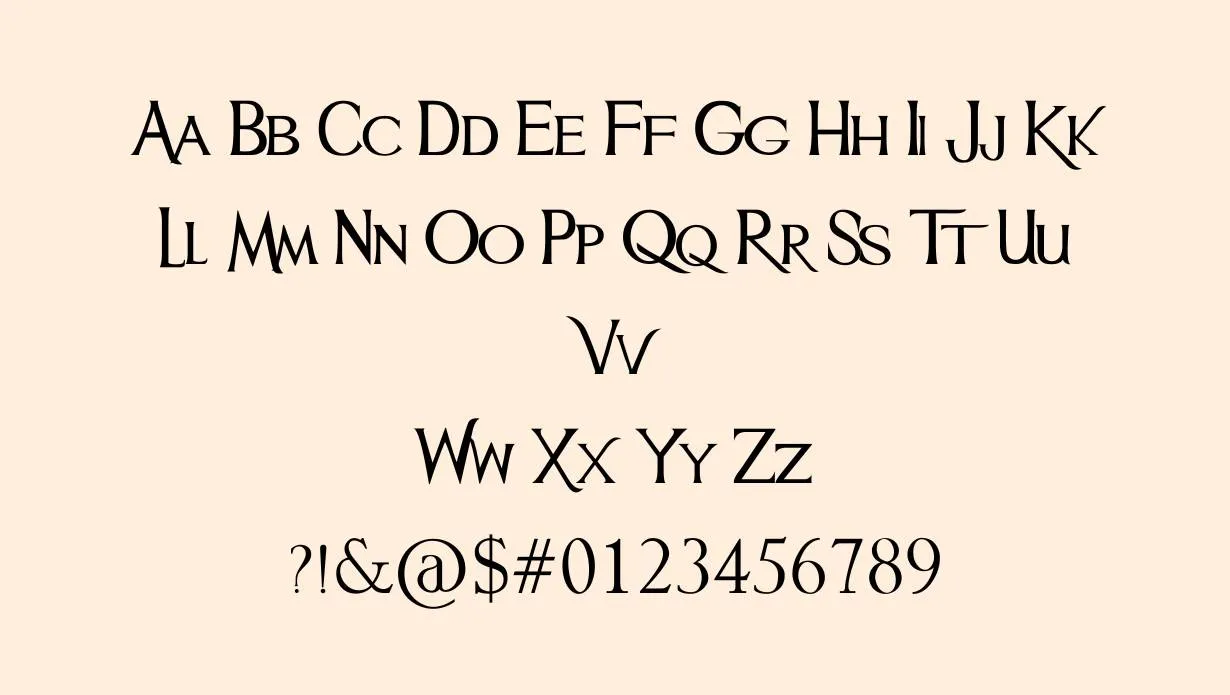
Mulan Font provides a sleek and contemporary look with a simple and friendly appearance.
It’s suitable for various design applications, from branding to web design, where clarity and simplicity are key.
| Name | Mulan Font |
| Designer | Melanie Blanco |
The typeface family’s broad range of language support makes it an excellent companion for decorative fonts such as Zimbra Font, resulting in a harmonious and visually appealing combination.